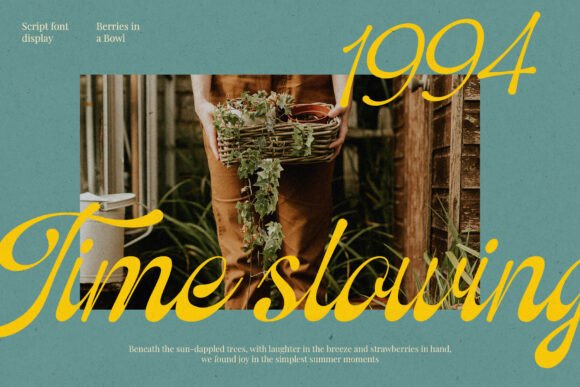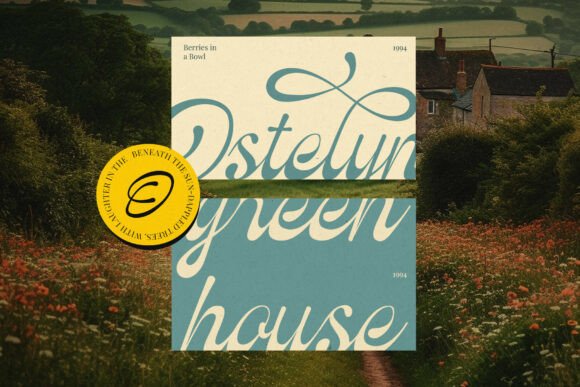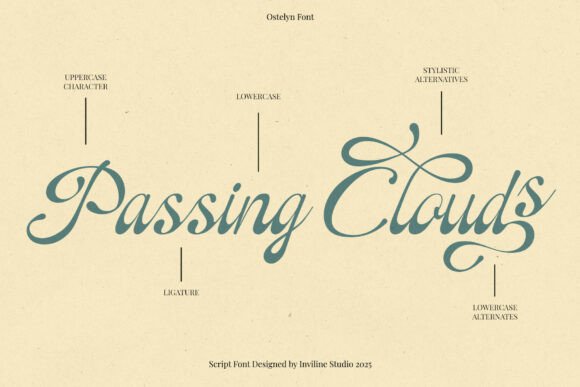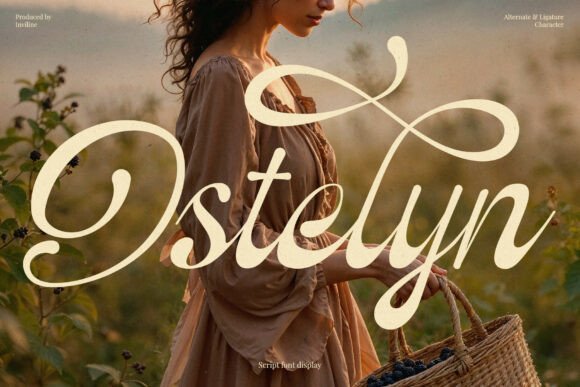
Introduction to Ostelyn Regular Font
Ostelyn is an elegant script font with romantic vintage flair, featuring graceful curves and charming swashes.
Perfect for wedding invitations, feminine branding, quotes, and lifestyle designs Includes alternates and ligatures for creative typography compositions that feel timeless and delicate.
Key Features of Ostelyn Regular Font
Why Choose Ostelyn Regular Font?
Ostelyn Regular Font offers exceptional quality and versatility, making it a valuable addition to your design toolkit. Whether you’re creating for personal projects or commercial use, Ostelyn Regular Font delivers professional results.